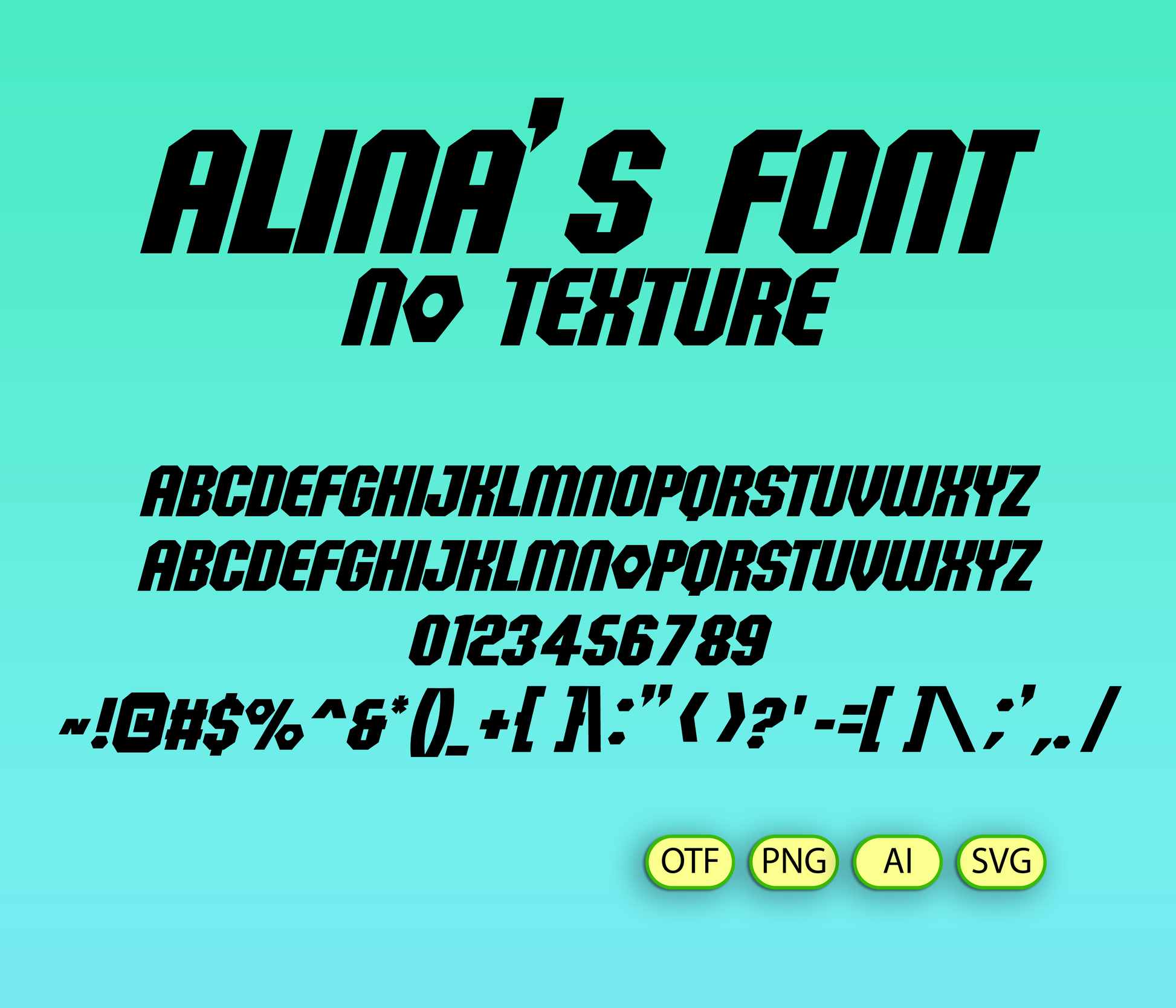
Next Gen Ninja Font
Step into the modernized world of shinobi with our specially designed font, capturing the essence of a new generation of ninja techniques and technology. Perfect for fans, manga creators, event organizers, and designers, this font brings the fresh, innovative spirit of the next generation ninjas to your projects. Create event invitations, themed merchandise, or digital content with the powerful energy of these young warriors.
Our Next Gen font features sleek, futuristic characters reflecting the blend of traditional jutsu and modern ninja science. Ideal for:
Our font pays tribute to the new era of ninja tales, empowering your designs with its innovative and energetic spirit. Whether crafting promotional materials, designing merchandise, or adding a modern ninja touch to personal projects, this font communicates the powerful essence of the next generation shinobi. Ready to inject some future ninja power into your creations? This font is your key to dynamic, impactful design.